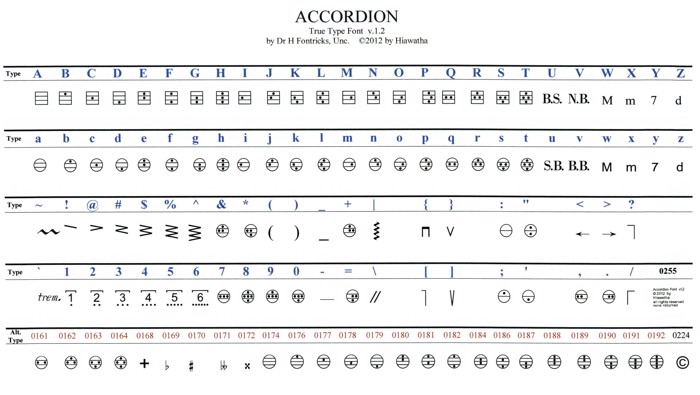
Accordion Font
I'm a composer, was writing a piece for accordion, and needed a font of accordion registrations. Web searches revealed little along those lines, so I made my own. This font contains 120 mostly accordion-related symbols, including registrations, chord notations, and bellows indications. Documentation is included in the Zip file. Freeware, for non-commercial use.